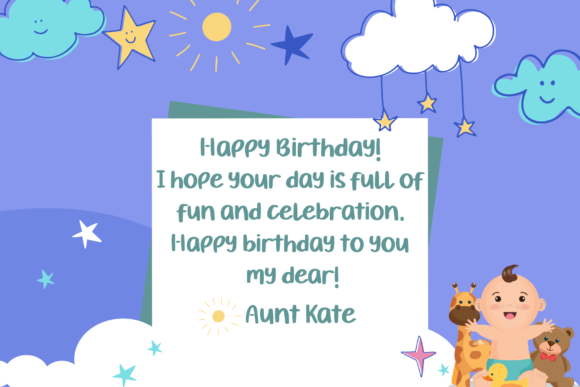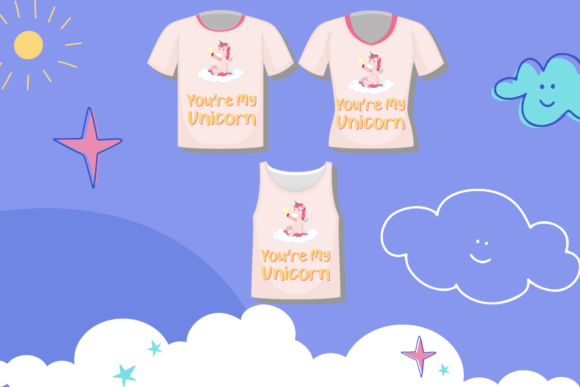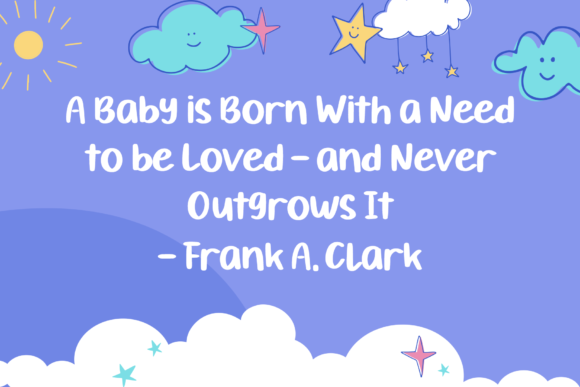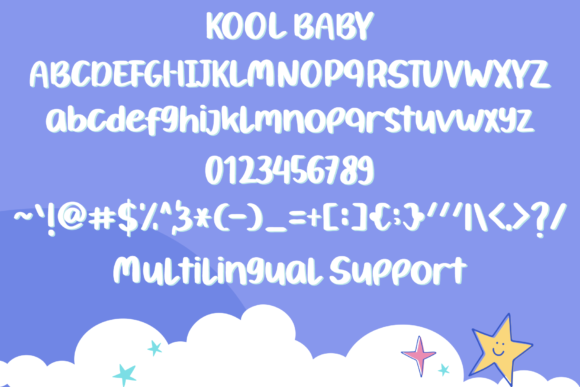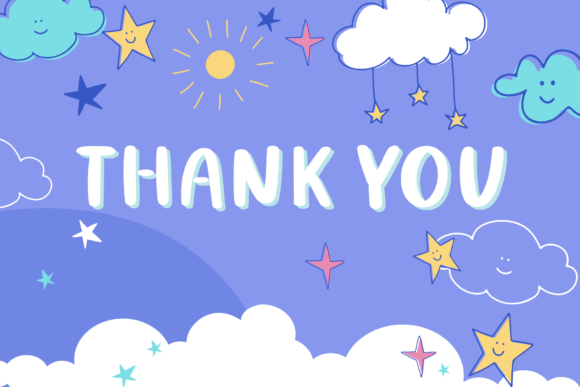
Introduction to Kool Baby Font
Do you remember that moment when you’re brainstorming ideas for a creative project and you stumble upon the perfect font? It’s like a spark of inspiration that sets off a chain reaction of excitement and creativity. For designers, finding the right font can make all the difference between a mediocre project and a truly exceptional one.
Enter Kool Baby Font, a fun, quirky, and whimsical display font that’s sure to bring a smile to your face. With its original look, this design resource is perfect for a wide range of crafty ideas, from letterheads and titles to stationery. Whether you’re working on a personal project or a commercial design, Kool Baby Font is a valuable addition to your toolkit.
Key Features of Kool Baby Font
- High-quality, unique design perfect for creative projects, offering a fresh and playful touch.
- Designed to be highly legible and visually appealing, making it suitable for a wide range of design applications.
Honest Review: Kool Baby Font
I recently had the chance to work with the Kool Baby Font, and I’m excited to share my honest review with you.
What works well: ✨ The Kool Baby Font is a great addition to any design resource, offering a playful and whimsical feel that’s perfect for creative projects. I was impressed by the variety of glyphs and characters available, making it easy to use in a range of contexts. The font also includes a transparent background, which is a nice touch for designers who like to work with complex backgrounds.
What doesn’t work so well: ⚠️ While the Kool Baby Font is a high-quality design, I did encounter some issues with kerning and spacing in certain combinations of characters. This wasn’t a major problem, but it did affect the overall polish of the design.
Overall, I was impressed by the Kool Baby Font’s potential and would recommend it to designers working on creative projects that require a playful touch.
- Perfect for creative projects and design resources
Tips for Getting the Most Out of Kool Baby Font
To get the most out of Kool Baby Font, use it on a transparent background to create a clean and modern look. You can also use it in conjunction with other design elements to create a unique and creative project.
Kool Baby Font is commonly used in various design projects, including:
- Children’s party invitations and decorations
- Infographic design
Alternatives to Kool Baby Font
1. Comic Sans MS
Comic Sans MS is a fun, casual font ideal for creative projects requiring a playful touch. It’s perfect for designing advertisements, social media graphics, or any other high-quality design resource.
When to use: Comic Sans MS is suitable for informal designs, such as blog posts, social media posts, or children’s educational materials.
Comparison: Comic Sans MS is more casual and playful than Kool Baby Font, making it ideal for designs that require a more laid-back feel.